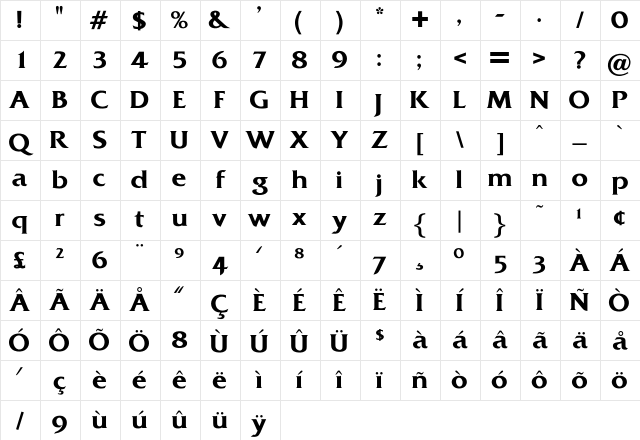
OPTIDiamond-DemiBold Regular Free Font
OPTIDiamond-DemiBold Regular
Design Context for OPTIDiamond-DemiBold
OPTIDiamond-DemiBold is a composed and adaptable typeface that performs quietly and consistently across a wide range of design contexts. Its bold stroke weight gives it real presence on the page.